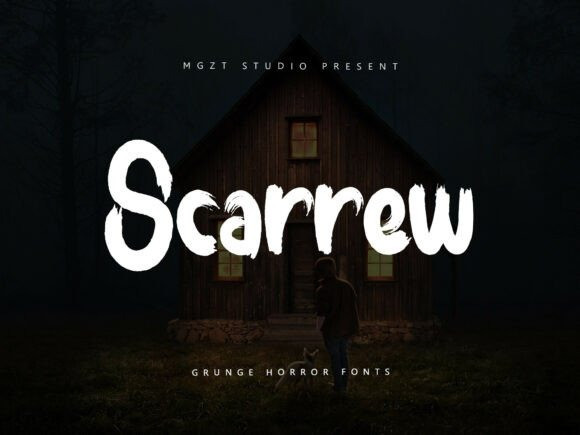
Scarrew Brush Font
Scarrew Brush Font: the uniquely striking font that flawlessly intertwines terror and charm to allow for bold and captivating presentations. With a distinctive horror-inspired design, Scarrew adds an alluring edge which perfectly complements everything from shirt designs to ceremonial scripts. Make a lasting impression and let your creation leap from the ordinary to extraordinary with Scarrew. This blend of spine-chilling elegance is distinct, playful, and allows its user to truly stand out with their creative endeavours. Compellingly refined yet powerfully impactful, Scarrew invites you to explore your darker artistic expression while keeping a cute, aesthetic appeal. Immerse yourself in its unique charm and see how Scarrew can transform your design creativity.